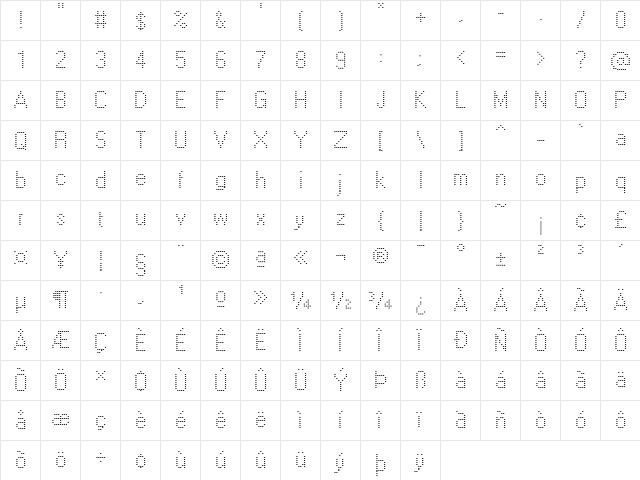
Windows Dots Windows Dots
| Foundry | Levi Szekeres |
| Designer | Levi Szekeres |
Design Context for Windows Dots Typeface
Windows Dots celebrates the constraints of early digital type, turning pixel geometry into a distinctive and immediately recognisable style.
A natural choice for retro game titles, chiptune music branding, 8-bit UI, and digital nostalgia projects.
Pro Tip: Pair Windows Dots with flat colour palettes and simple geometric UI elements to reinforce its digital aesthetic.